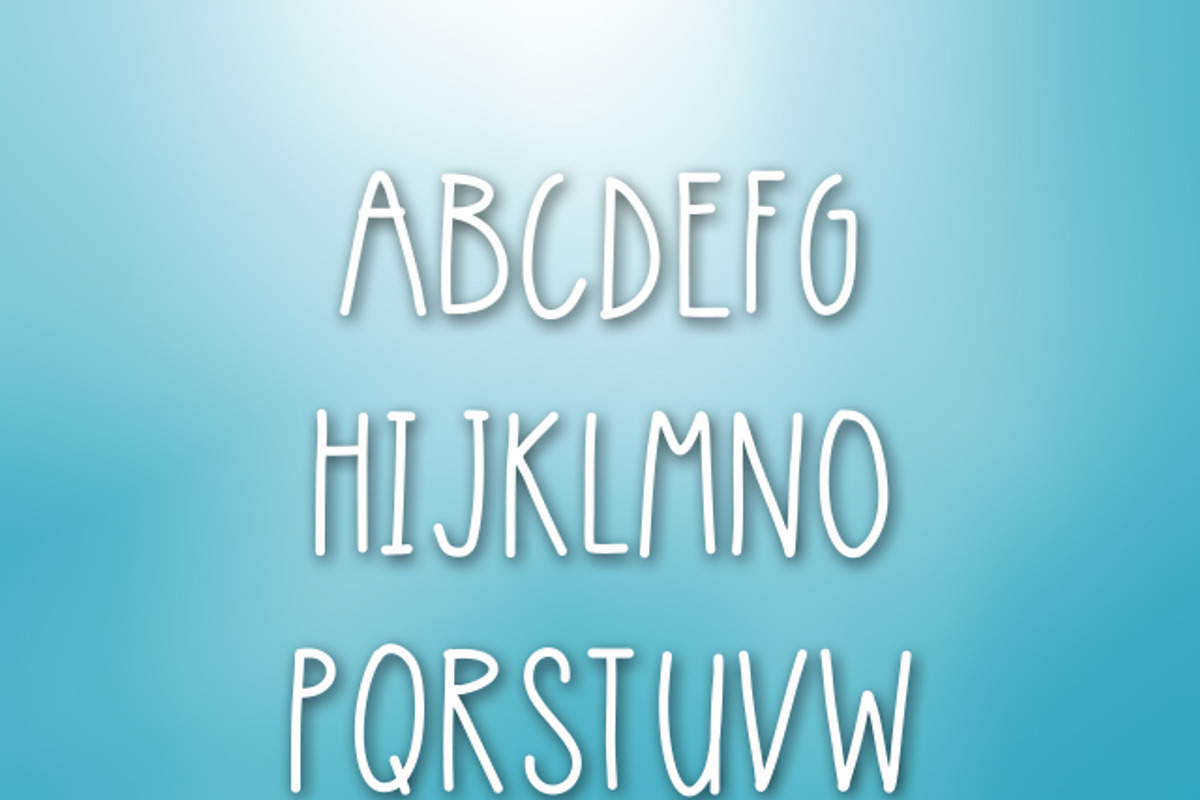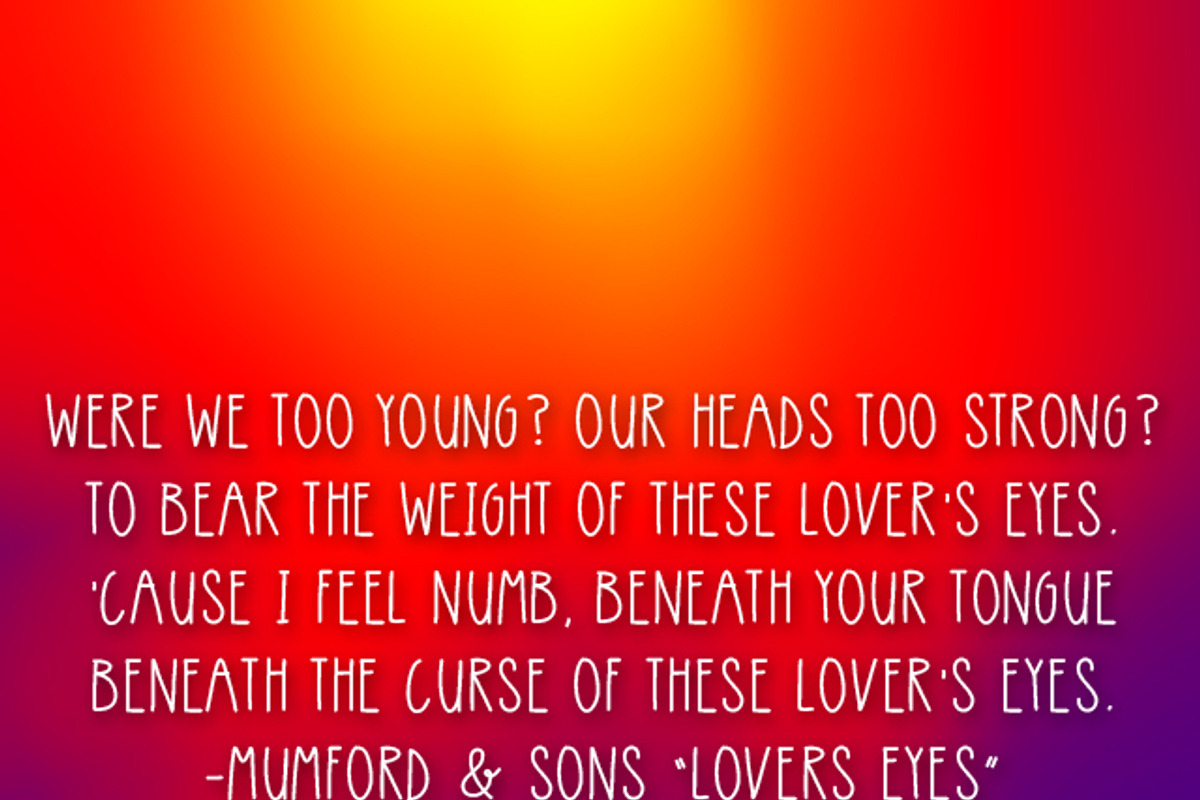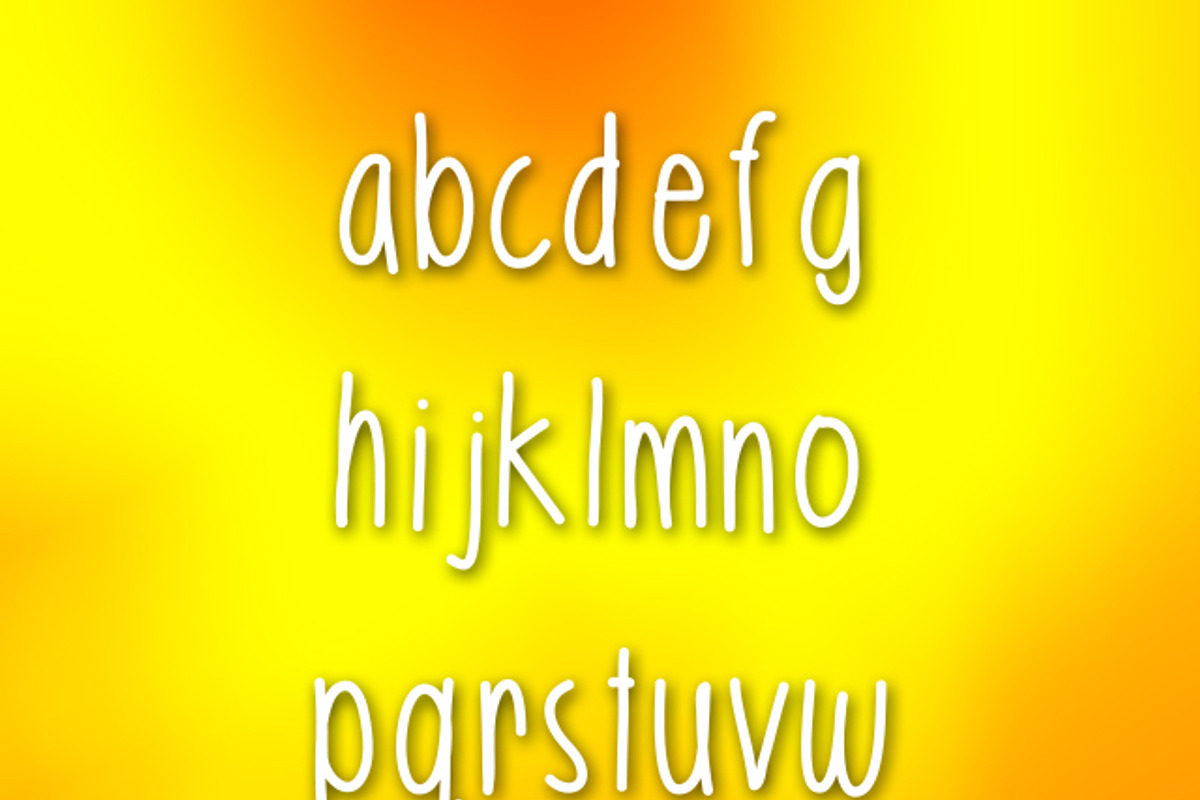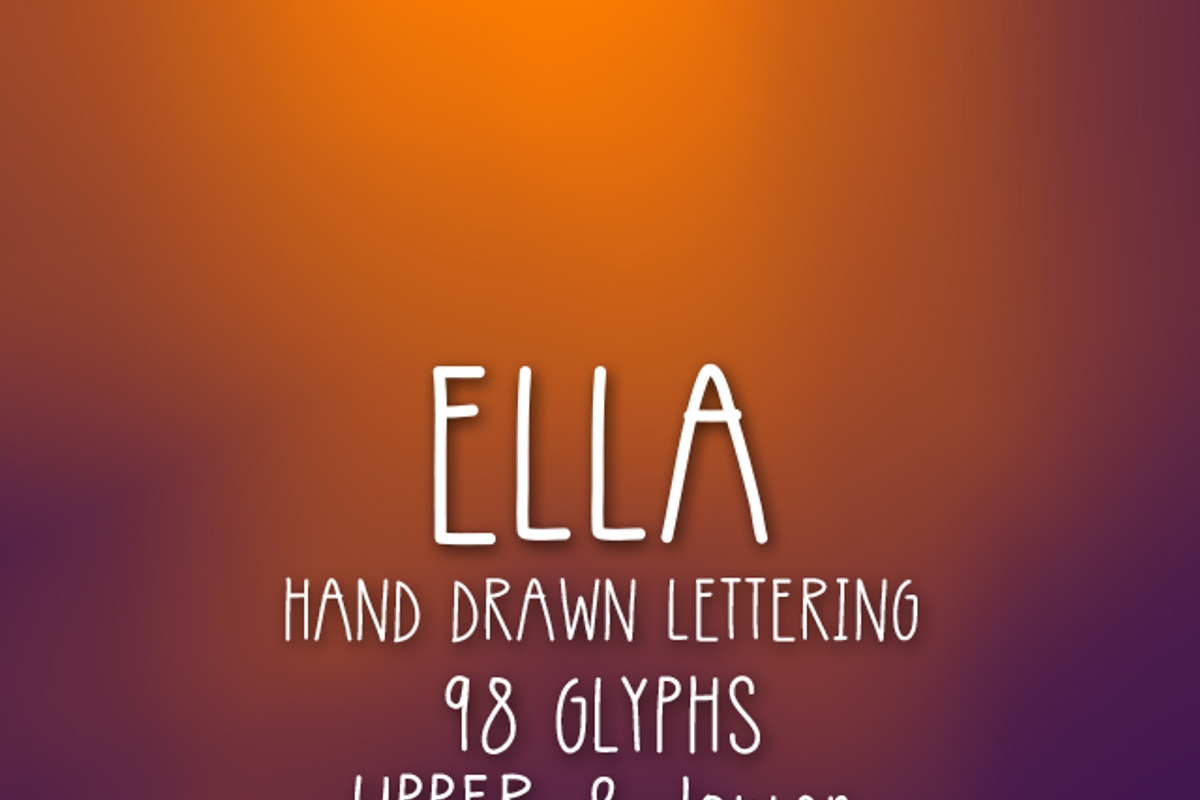
Ella Hand Drawn Font
Ella Hand Drawn Font by OnTheSpotStudio is a font selected for branding, posters, packaging, typography.
Why Ella Hand Drawn Font is worth a look
Ella Hand Drawn Font by OnTheSpotStudio fits naturally into Branding, posters, packaging, typography.